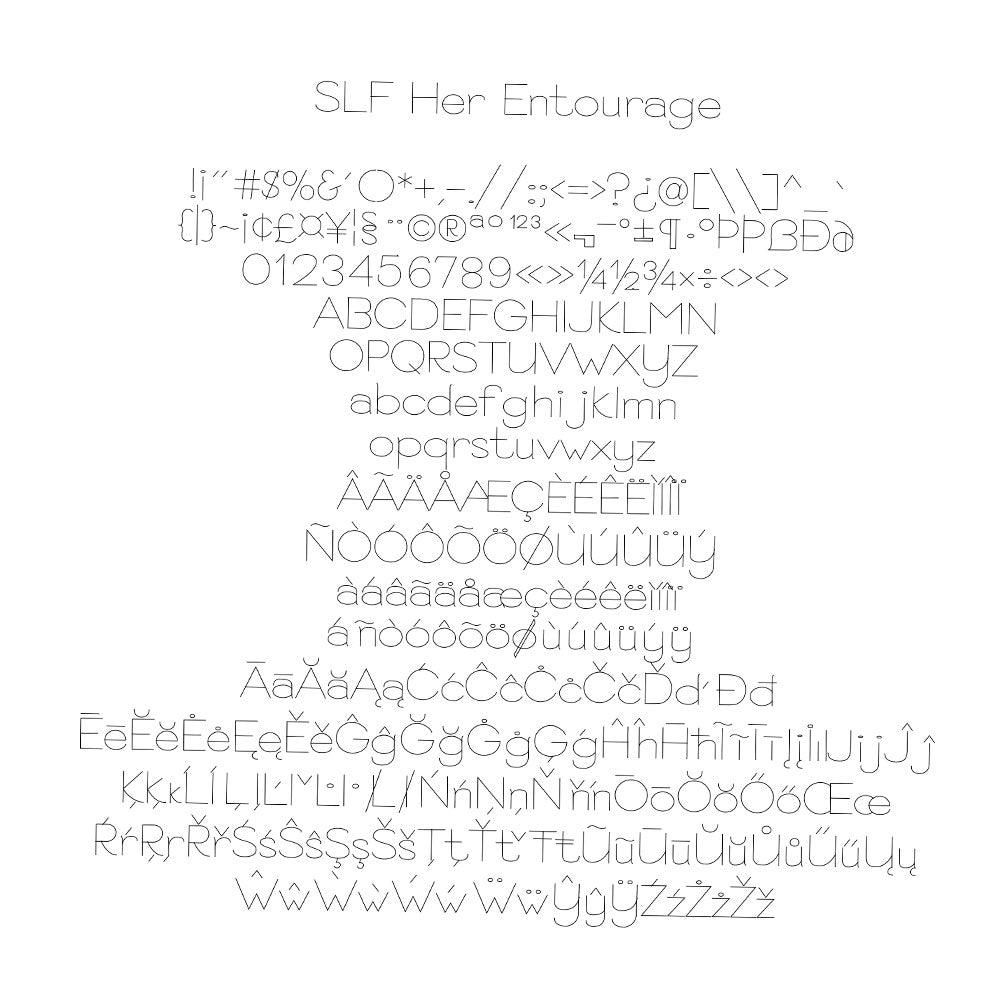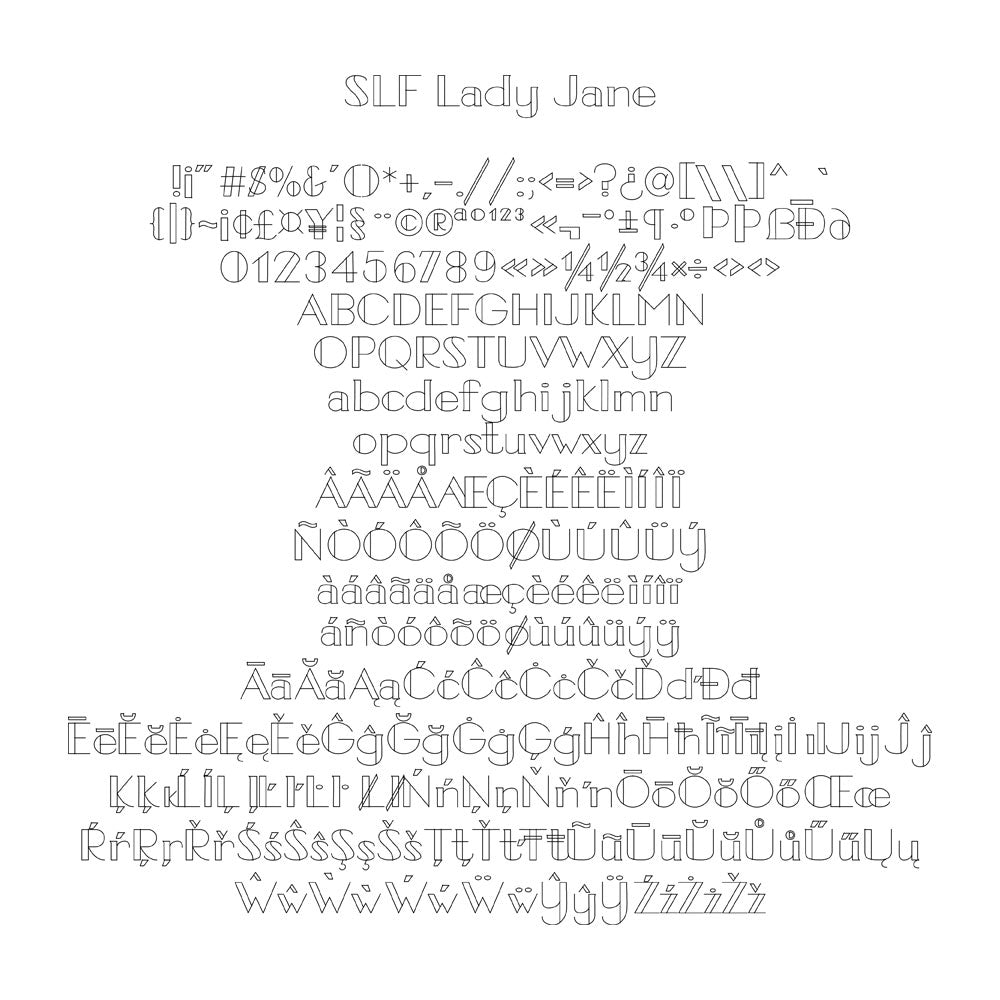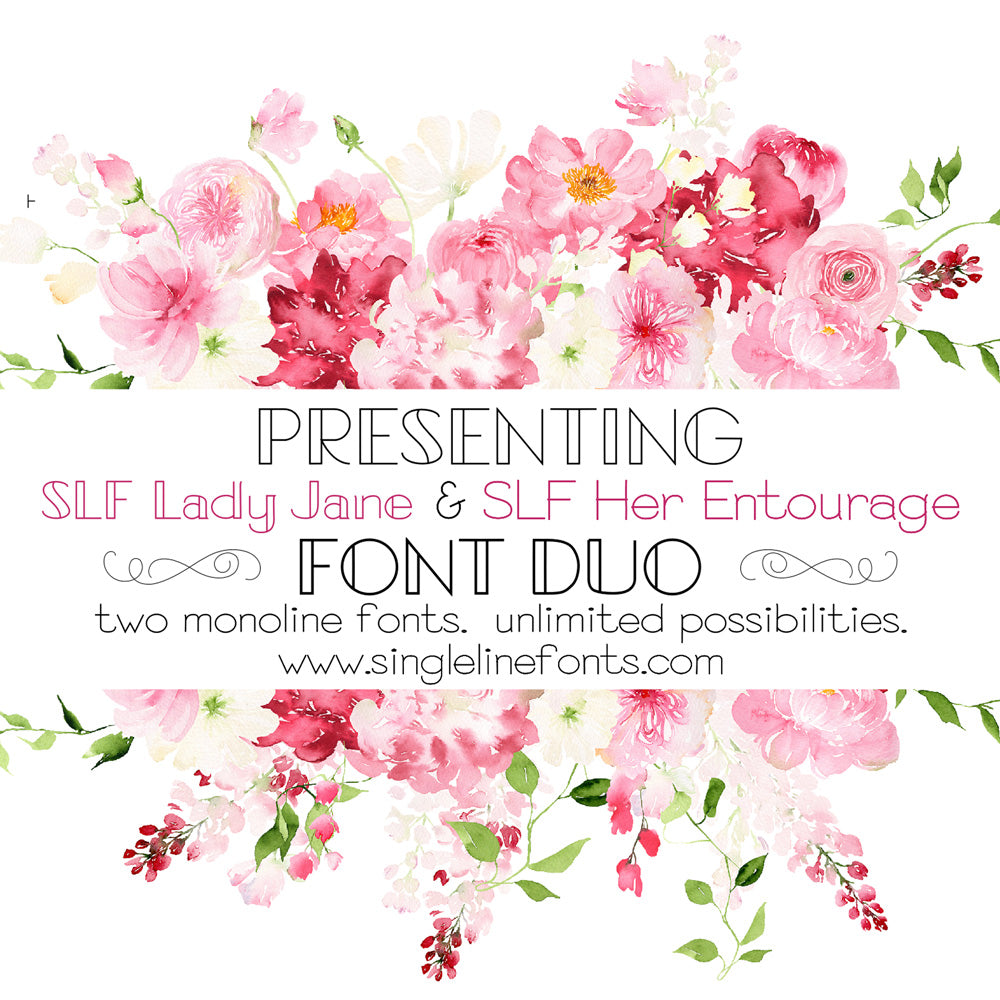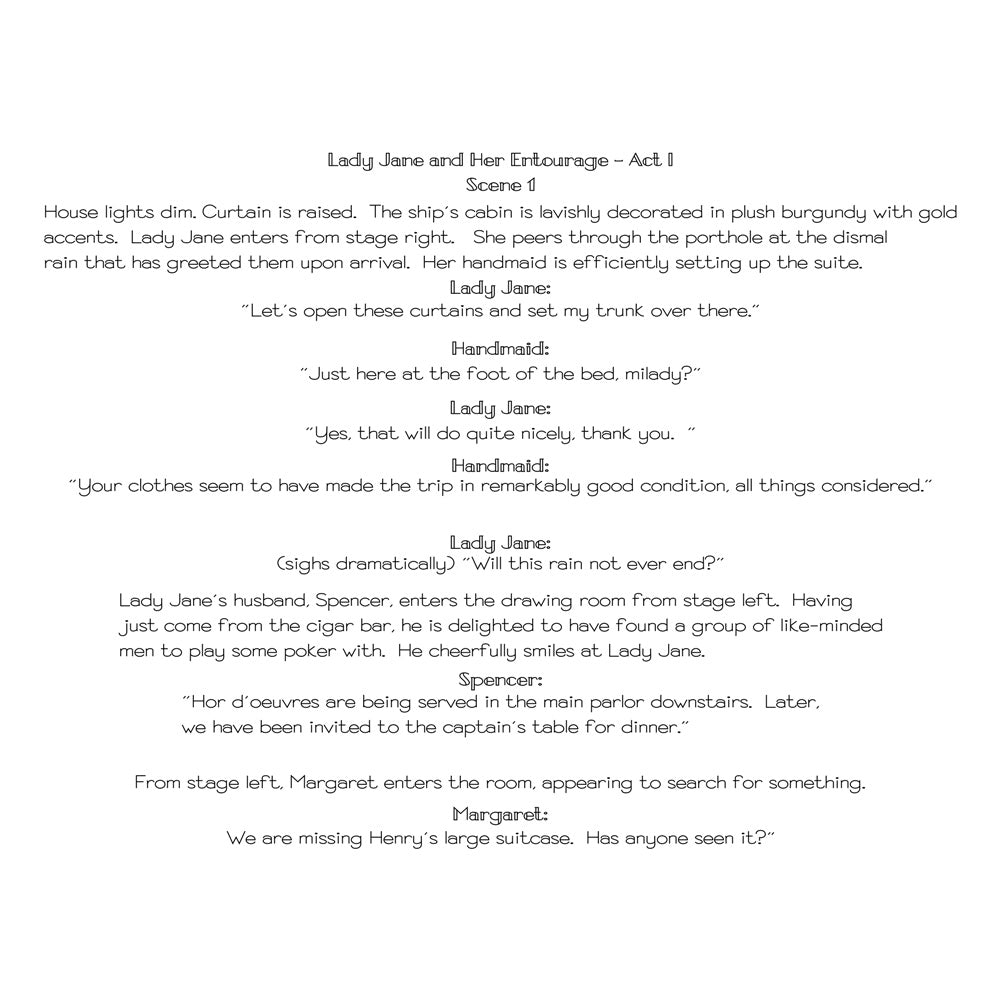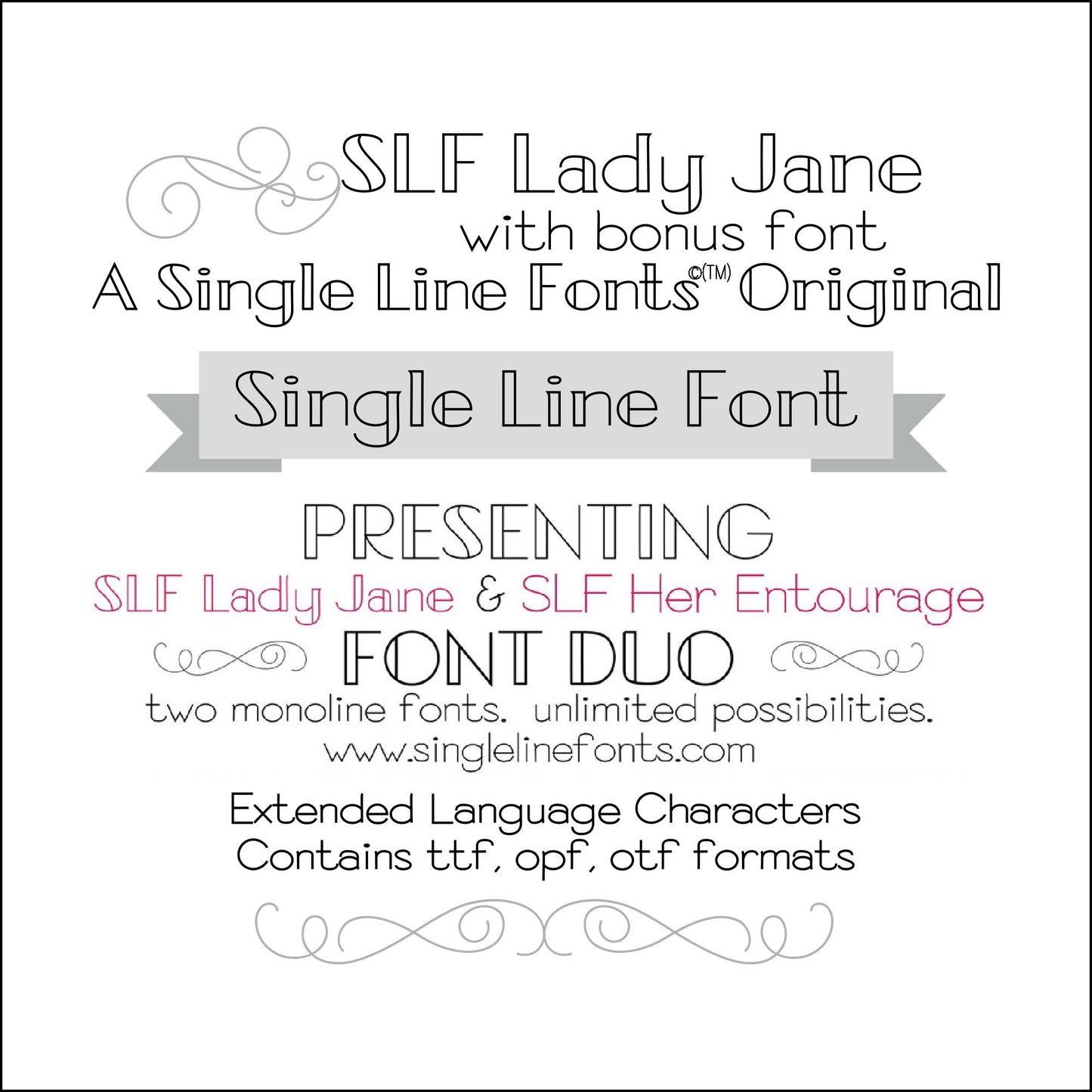
SLF Lady Jane & Her Entourage – Single Line Font Duo for Engraving & Creative Projects
SLF Lady Jane & SLF Her Entourage is a unique single line font duo featuring two delightful complementary fonts — a classic print style paired with a matching entourage/companion font. Together they create endless creative possibilities for engraving, scoring, sketch tools, CNC projects, and personalized crafting.
• SLF Lady Jane — warm, friendly print-style lettering
• SLF Her Entourage — coordinating companion font for accents, names, and extra design flair
Each font includes a full character set with uppercase and lowercase letters, numbers, punctuation, symbols, and accented characters for multilingual support.
Why this duo stands out
Instead of just one font, you get a cohesive pair that works beautifully together:
• Create layered engraving text
• Add playful accents or secondary text
• Mix & match fonts for dynamic design layouts
• Personalized tags and gifts
• Greeting cards and invitations
• Coordinated signage and labels
• CNC engraving projects
• Laser engraving and scoring (Glowforge, LightBurn)
• Cricut engraving tool and sketch pens
• Pen plotter projects and foil quill tools